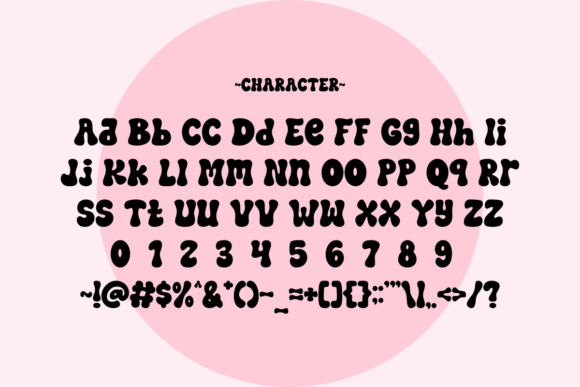
Retro Bright Font
Step back in time with Retro Bright, a cute groovy font that radiates vintage charm and joyful vibes. This bubbly and bold font is perfect for retro-inspired designs, party invitations, branding, or merchandise. With its lively and nostalgic look, Retro Bright makes any project shine with personality and fun.